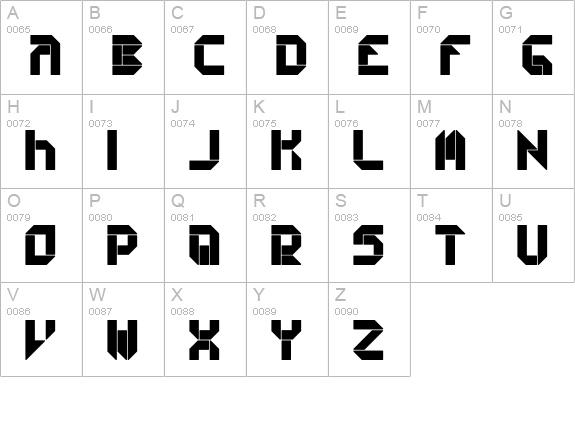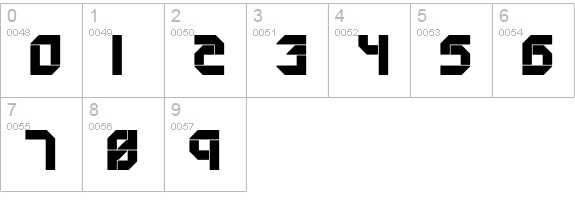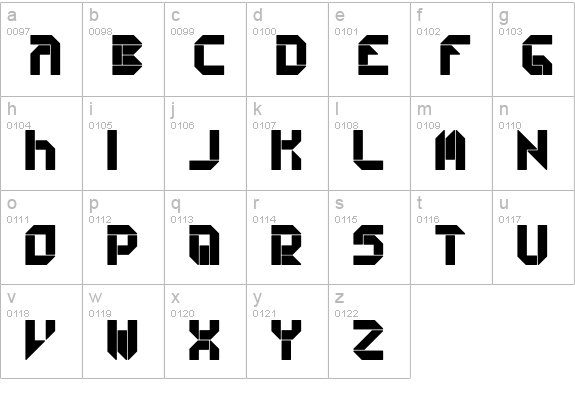
Collective S BRK Font Details
Collective S BRK font is a modern and stylish typeface that exudes creativity and sophistication. Its sleek lines and unique letter shapes make it perfect for a wide range of design projects, from branding to advertising to web design. The font's versatility allows it to be used in both digital and print media, adding a touch of elegance to any project. What makes Collective S BRK font even more appealing is that it is available for free download at FontsMarket.com. This means that designers and creatives can access this stunning font without any cost, making it a valuable addition to their font library. Whether you're looking to elevate your designs or simply explore a new typeface, Collective S BRK font is a fantastic choice that won't break the bank. Download it today and unleash your creativity!